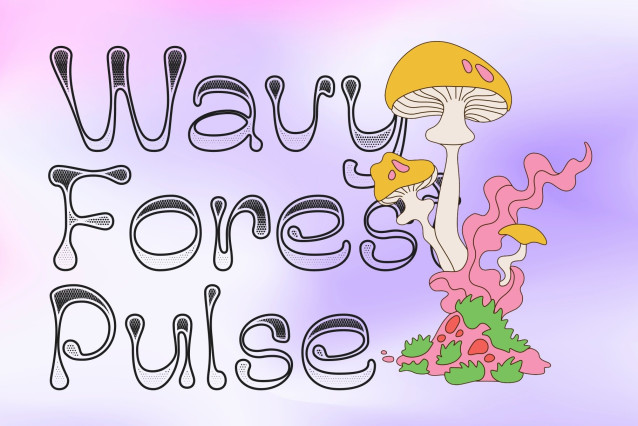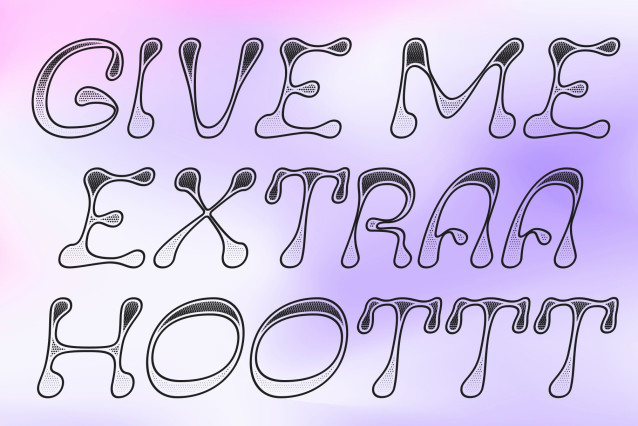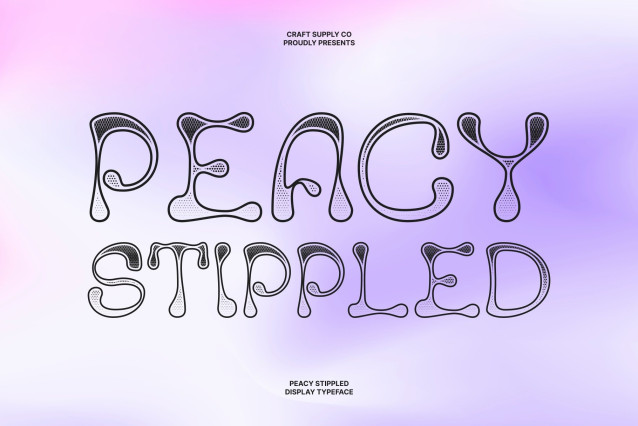
Peacy Stippled Font
Peacy Stippled – Psychedelic Font: Playful Psychedelic Typography with Artistic Dot Texture
Vibrant, Fun, and Full of Personality
This is a lively psychedelic display font that radiates joy, freedom, and cheerful energy. Its flowing curves, wavy shapes, and playful letterforms create a dynamic rhythm that instantly captures attention and brings a sense of movement to every design.
Reggae-Inspired Grooves and Good Vibes
Infused with the spirit of reggae culture, this font reflects positivity, creativity, and laid-back expression. The organic shapes feel musical and free-spirited, making the font perfect for designs that celebrate fun, color, and artistic individuality.
Stippled Texture for Vintage Artistic Character
The stippled version introduces a dense dotted texture inspired by classic ink stippling and hand-drawn illustration techniques. This dotwork effect adds depth, richness, and a handcrafted feel, giving the font a distinctive vintage and artistic personality while enhancing its psychedelic charm.